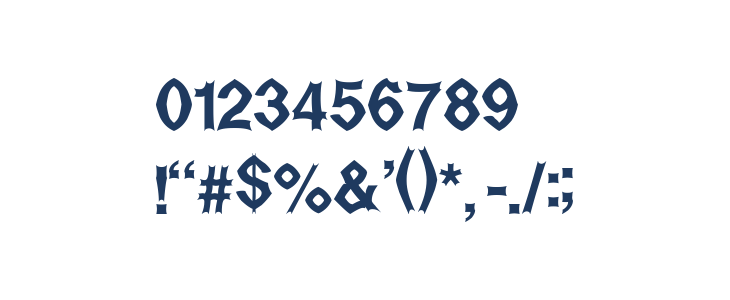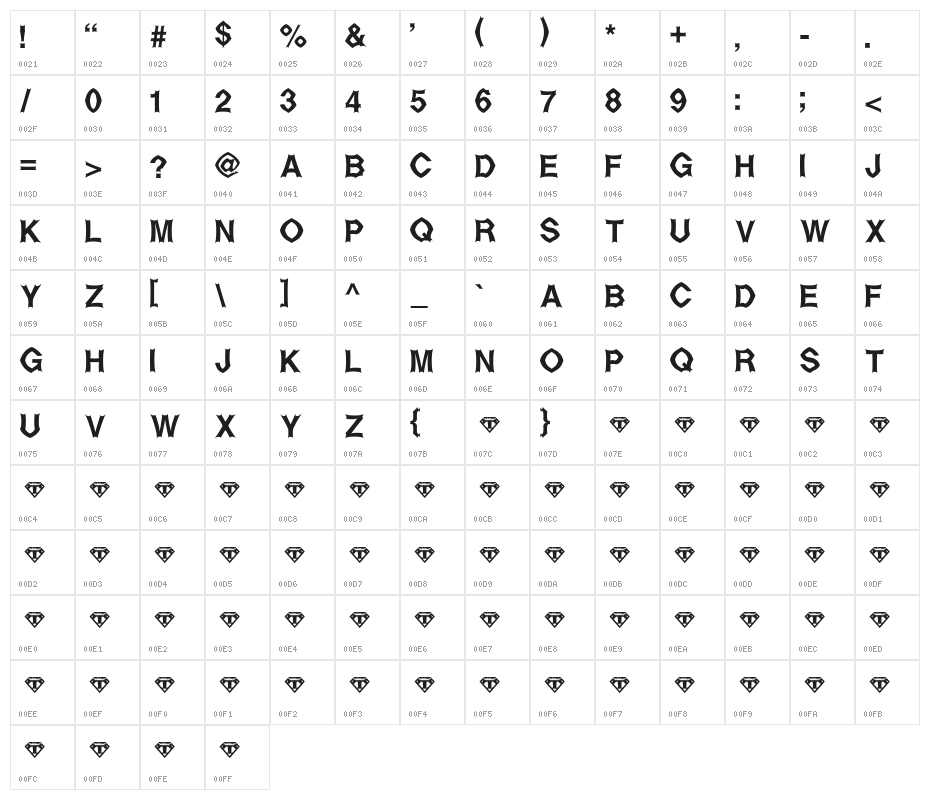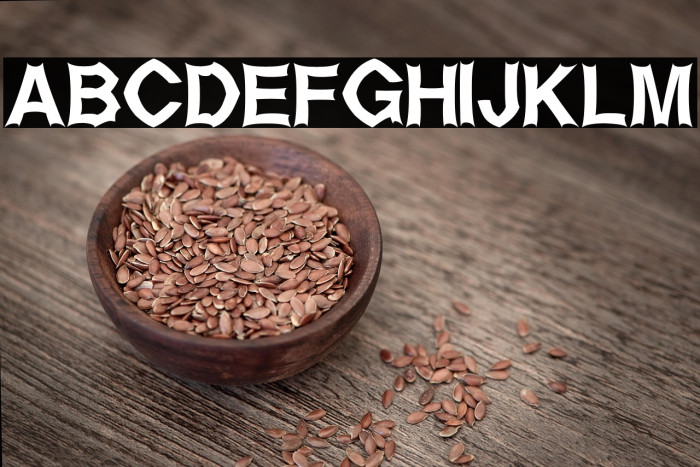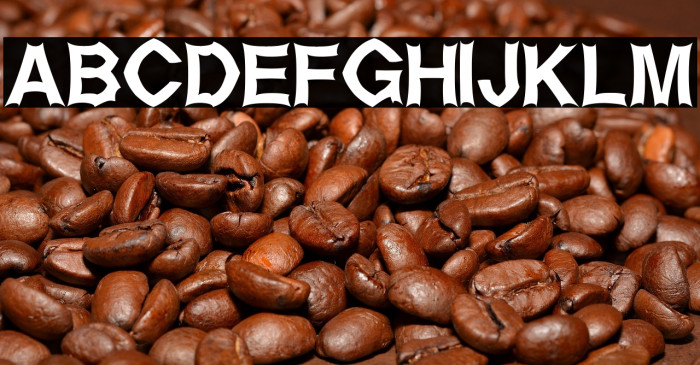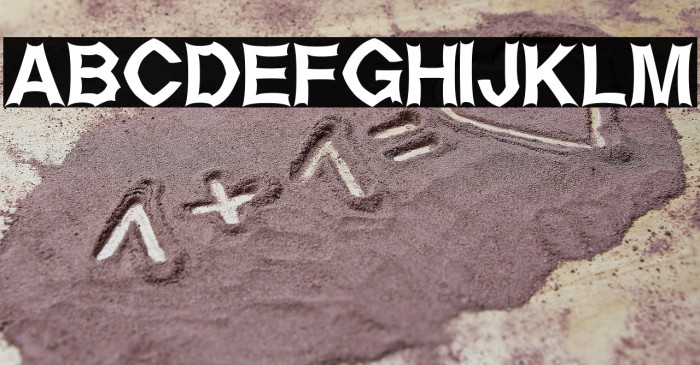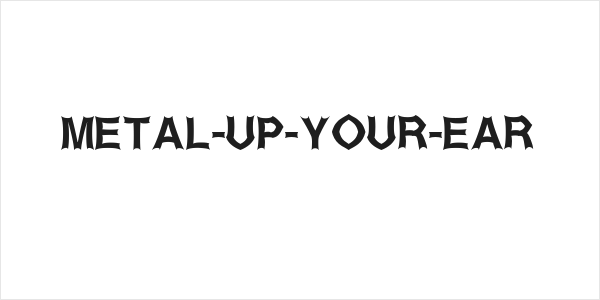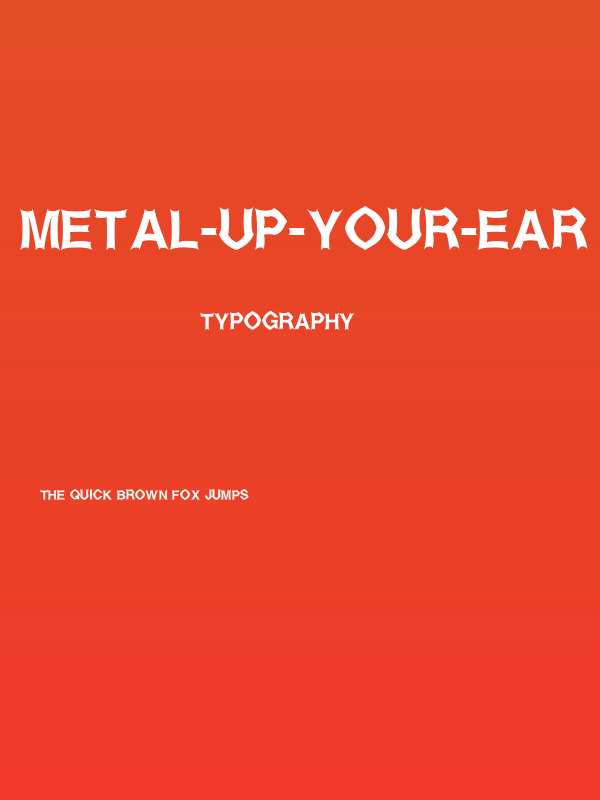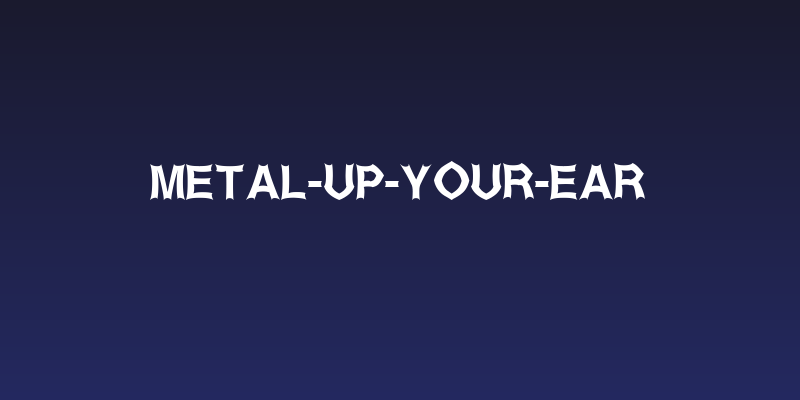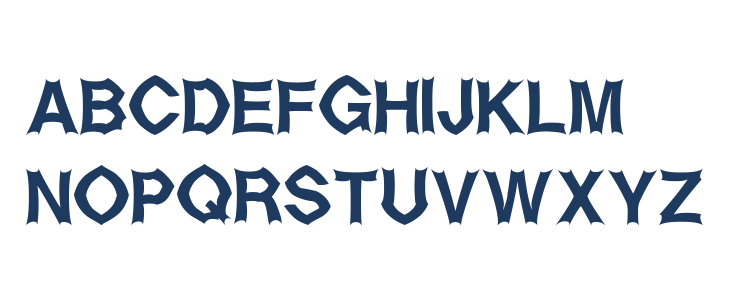
Metal-Up-Your-Ear Font
Metal-Up-Your-Ear Description
This font features a bold, edgy design with sharp, angular lines and a distinct, aggressive style. The characters are heavily stylized, with exaggerated serifs and a dynamic, energetic appearance. The uppercase and lowercase letters maintain a consistent theme, with each character exhibiting a unique flair that contributes to the overall impact. The numbers and special characters follow the same design principles, ensuring a cohesive look across all elements. This font is ideal for projects that require a strong, eye-catching typeface that conveys power and intensity.
| Proposed Projects | Ideal for music album covers, event posters, branding for extreme sports, or any project needing a bold, impactful typeface. |